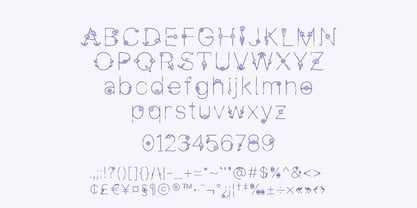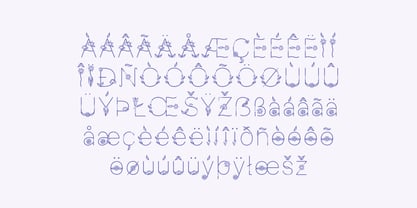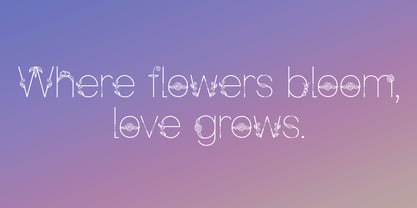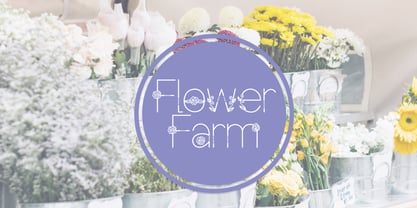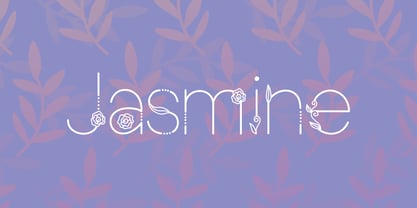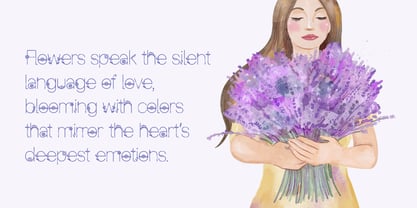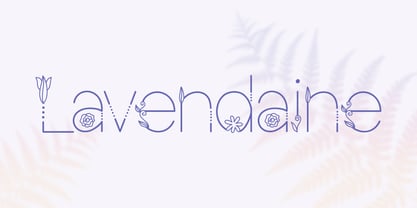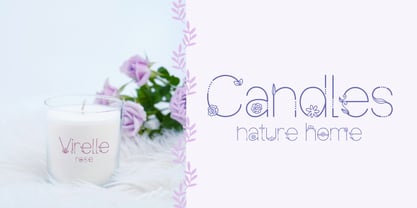
Lavendaine
Lavendaine is a delicate and decorative floral font that brings a touch of natural elegance to any project. Inspired by the gentle beauty of lavender fields and intricate botanical illustrations, each letter is thoughtfully crafted with graceful lines and subtle floral accents. It’s perfect for adding a whimsical, organic feel to wedding invitations, greeting cards, branding, and other designs that call for a unique and sophisticated charm.
I want to create not only fonts, but moods. The fonts in my portfolio are more than just letterforms; they are storytellers. Each typeface is designed with both aesthetic beauty and emotional impact in mind. My fonts are for those who seek to add a layer of personality and depth to their work, for those who believe that typography should not only be legible but also memorable and unique.